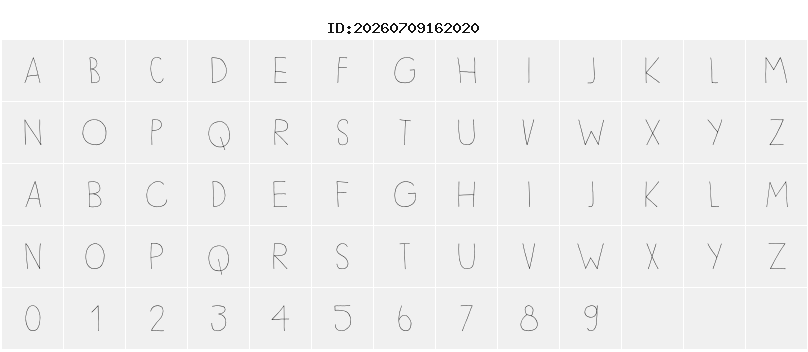
DK Sleepy Time Preview
• Font Name: DK Sleepy Time
• Designer: David Kerkhoff
About DK Sleepy Time.otf
DK Sleepy Time.otf is a modern, elegant sans-serif font designed for ultimate readability and visual harmony. Perfect for branding, headlines, web design, and print materials.